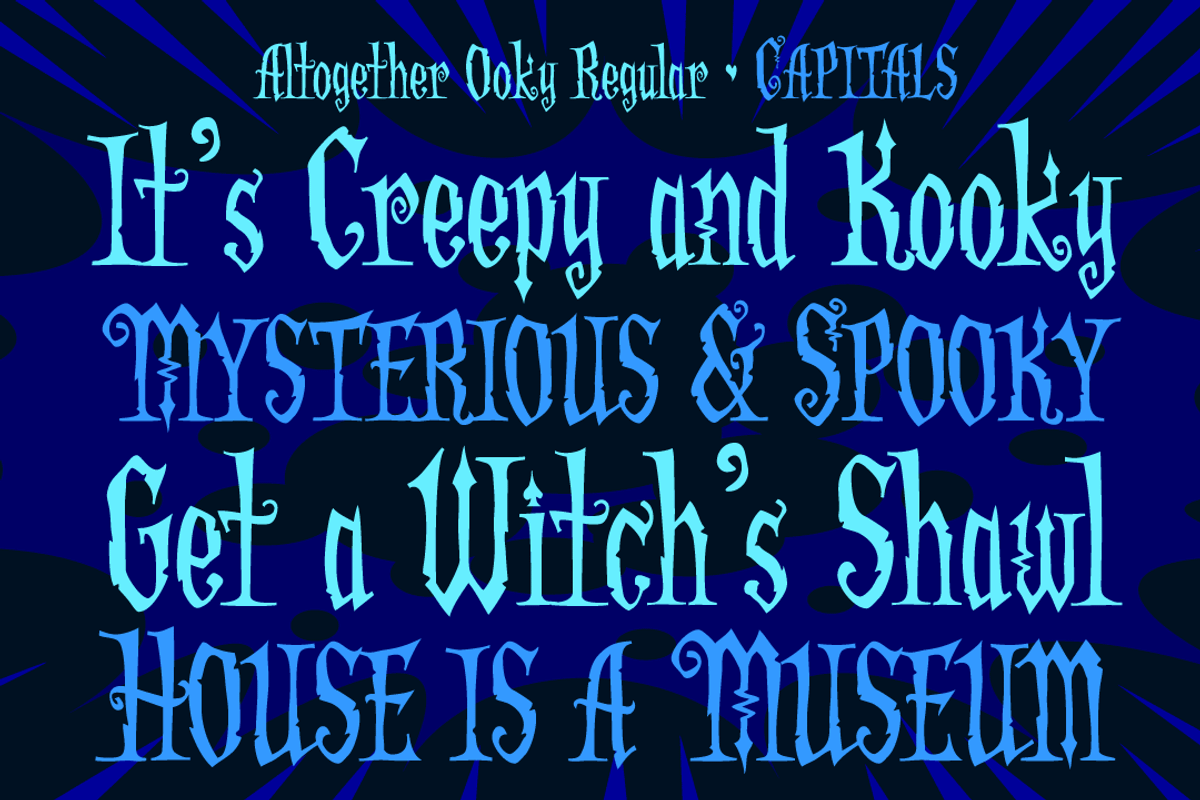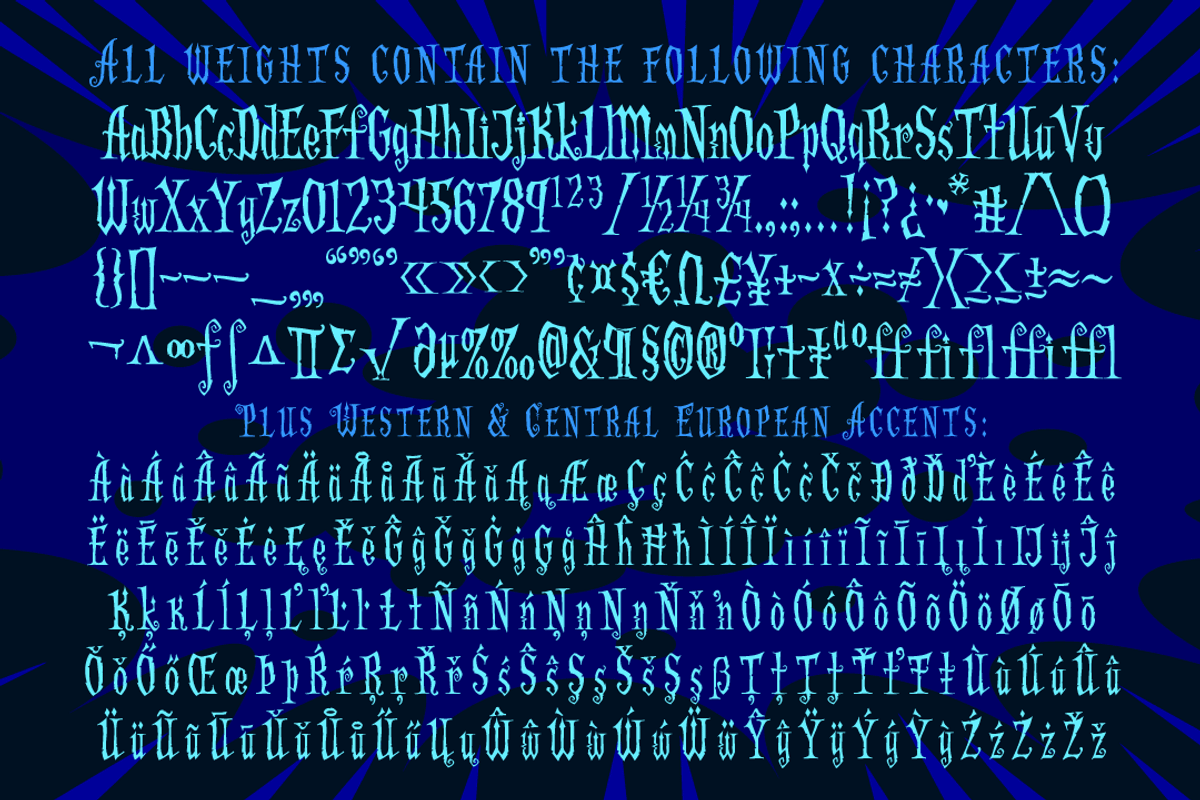
Altogether Ooky - creepy spooky font
Altogether Ooky - creepy spooky font by Comicraft Fonts is a font selected for branding, posters, packaging, typography.
Why Altogether Ooky - creepy spooky font is worth a look
Altogether Ooky - creepy spooky font by Comicraft Fonts fits naturally into Branding, posters, packaging, typography.